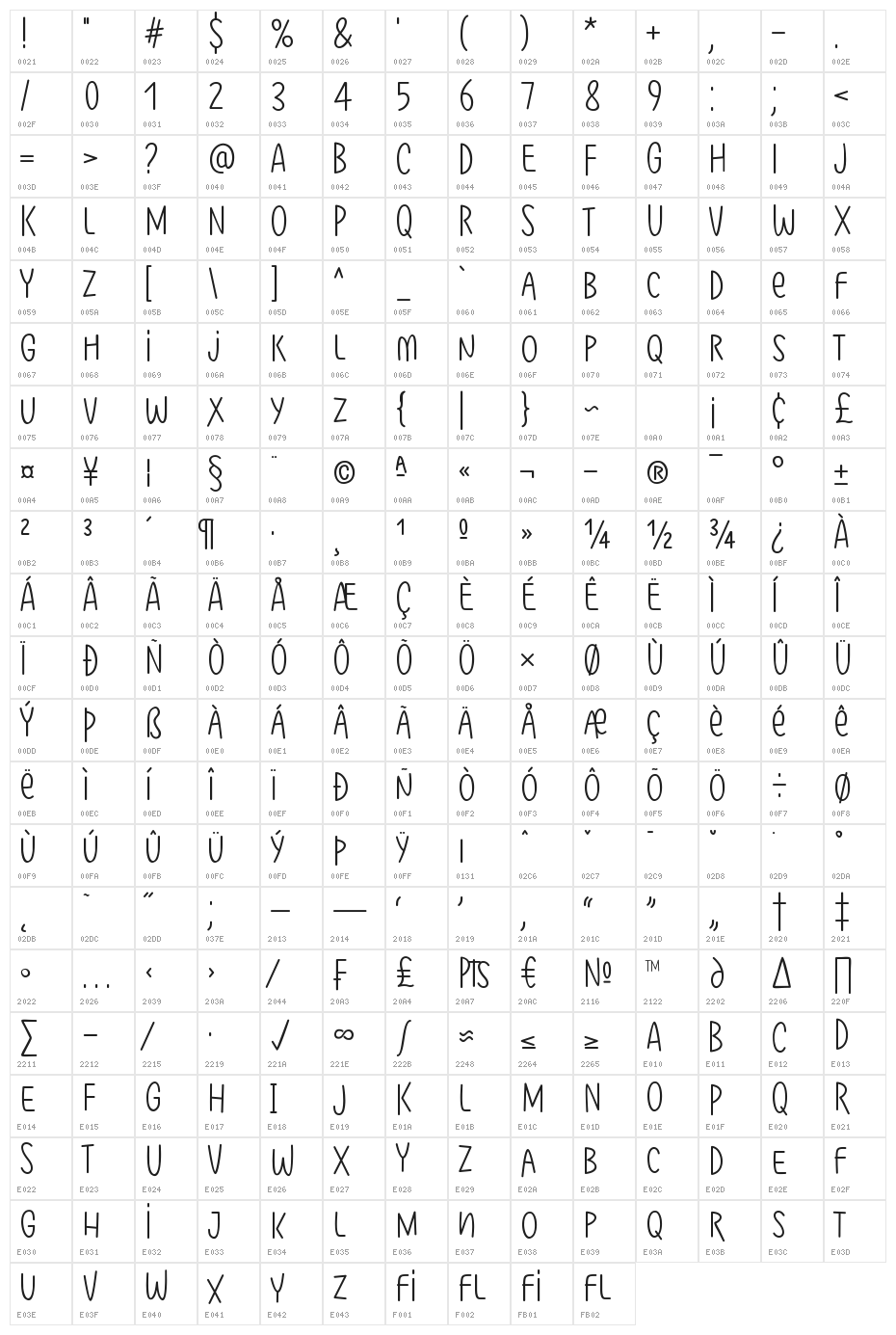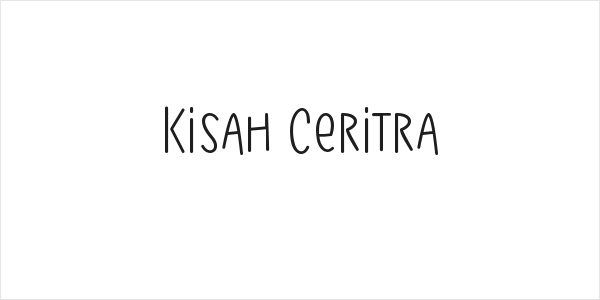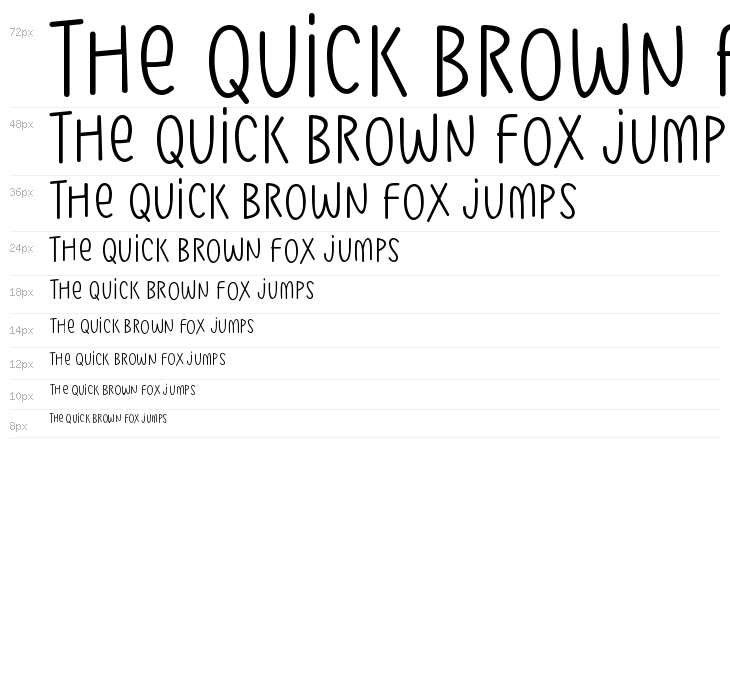
Kisah Ceritra Font
Kisah Ceritra Description
This font features a playful and casual handwritten style, characterized by its tall, narrow letters and slightly uneven strokes that give it a friendly and approachable feel. The uppercase and lowercase letters maintain a consistent height, contributing to a uniform appearance. The numerals and special characters are designed with the same playful aesthetic, ensuring cohesion across all text elements. The strokes are smooth and rounded, adding to the font's overall charm and readability. This font is ideal for projects that require a personal touch, such as invitations, greeting cards, or children's books.
| Use Case | Headlines, Informal text, Branding |
| Proposed Projects | Ideal for invitations, greeting cards, children's books, and casual branding. |